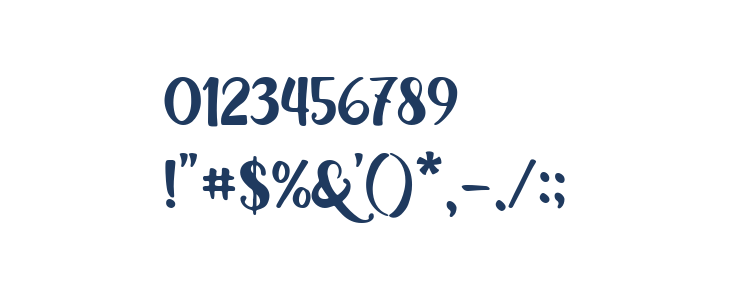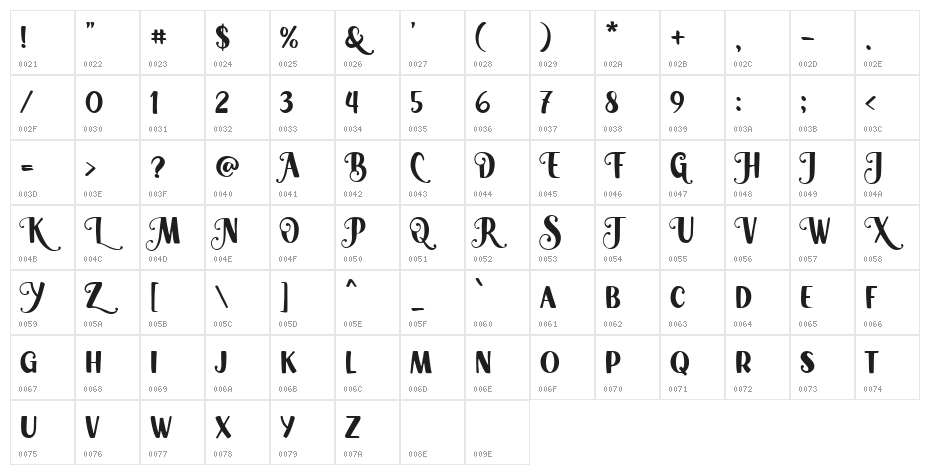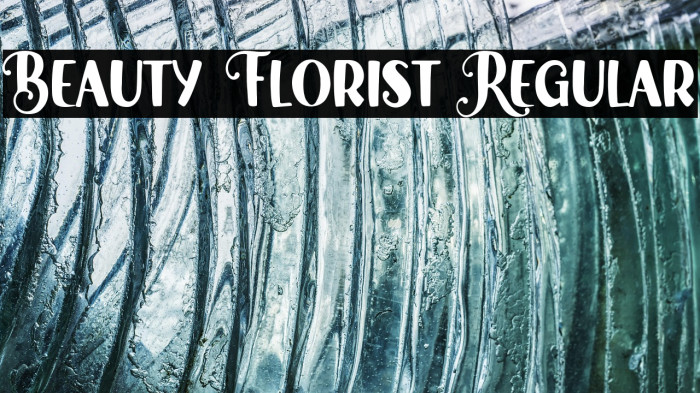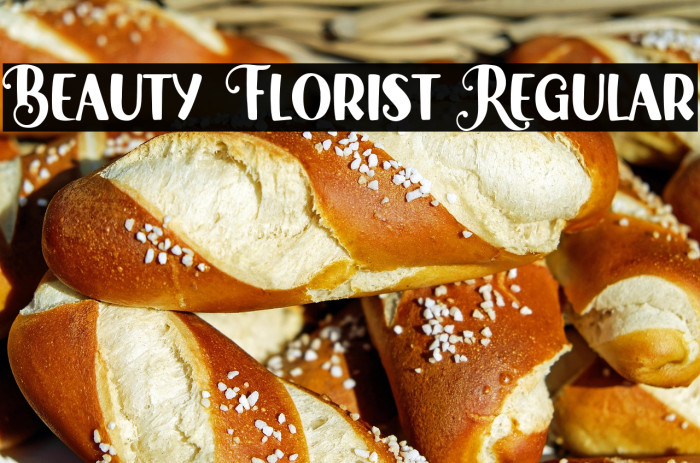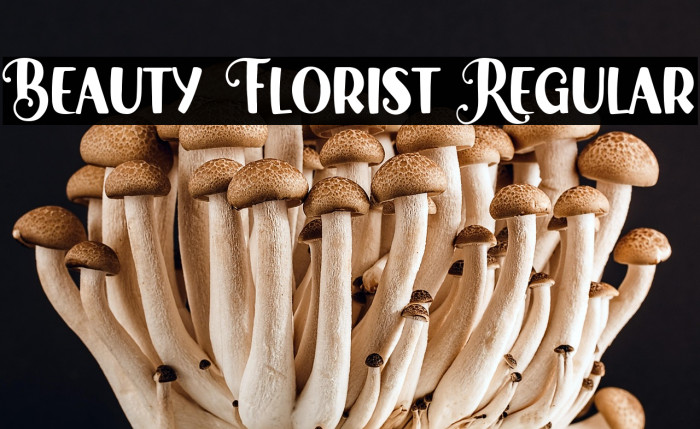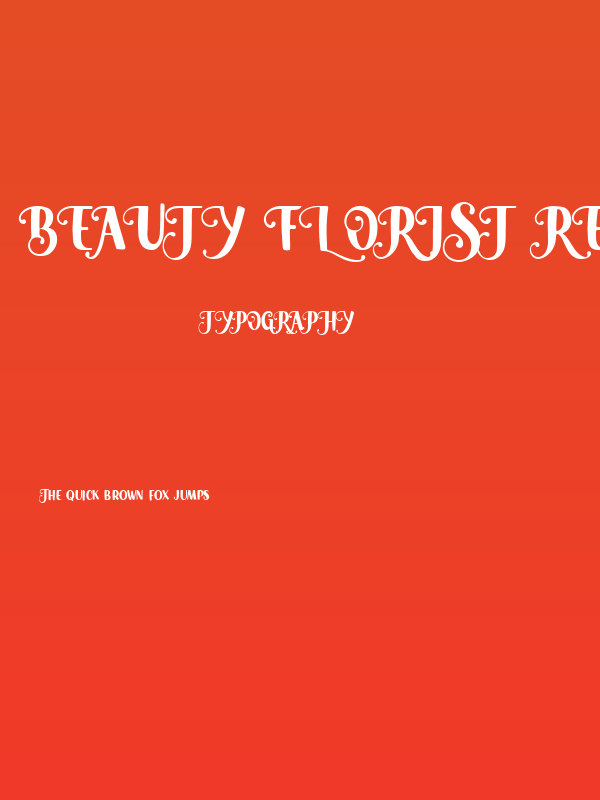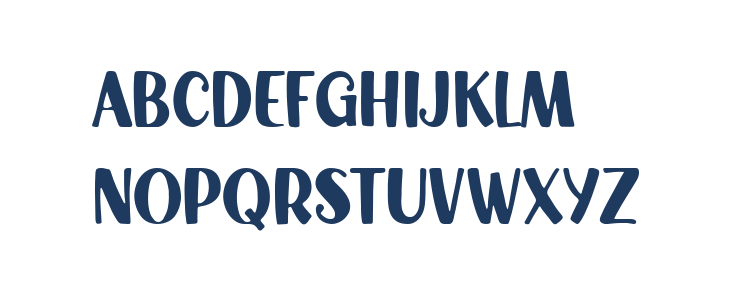
Beauty Florist Regular Font
Beauty Florist Regular Description
This font features a playful and decorative style, combining elements of both script and bold display fonts. The uppercase letters are adorned with elegant swirls and flourishes, adding a whimsical touch to the overall design. The lowercase letters maintain a bold and rounded appearance, providing a strong contrast to the ornate uppercase. Numbers and special characters are consistent with the bold style, ensuring readability while maintaining the decorative theme. The font's unique blend of decorative and bold elements makes it suitable for eye-catching designs.
| Proposed Projects | Ideal for wedding invitations, greeting cards, branding, and decorative signage. |